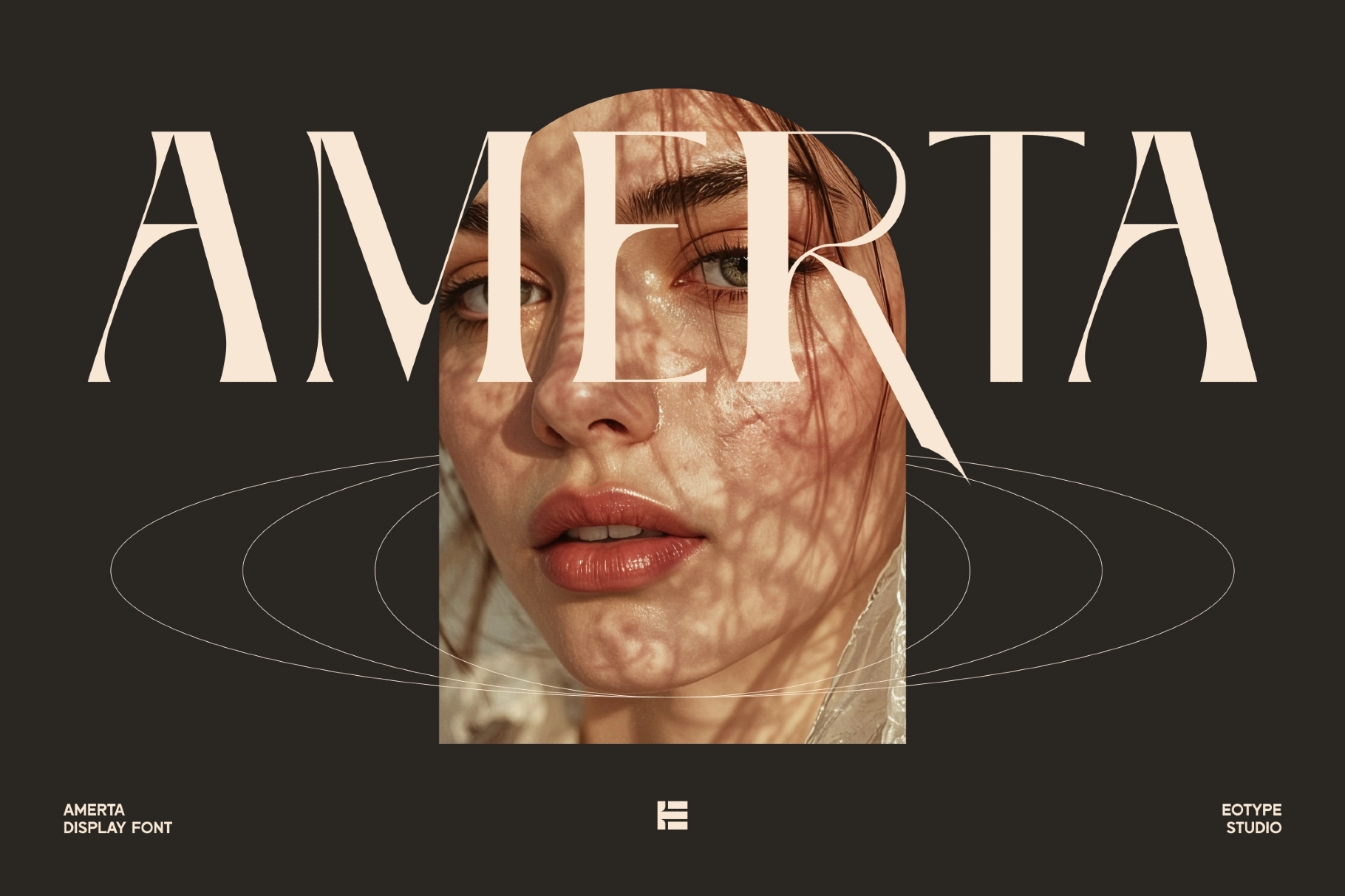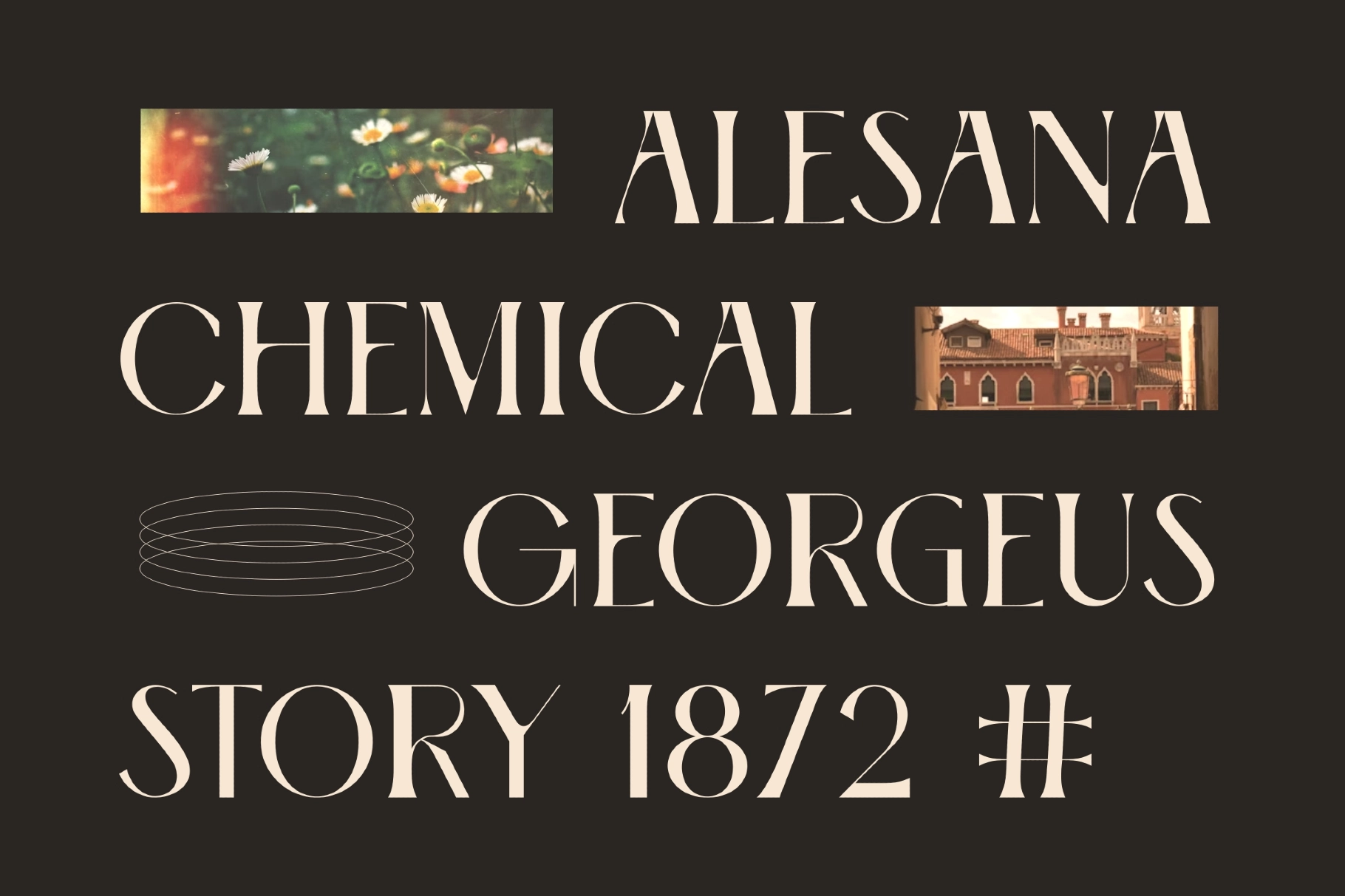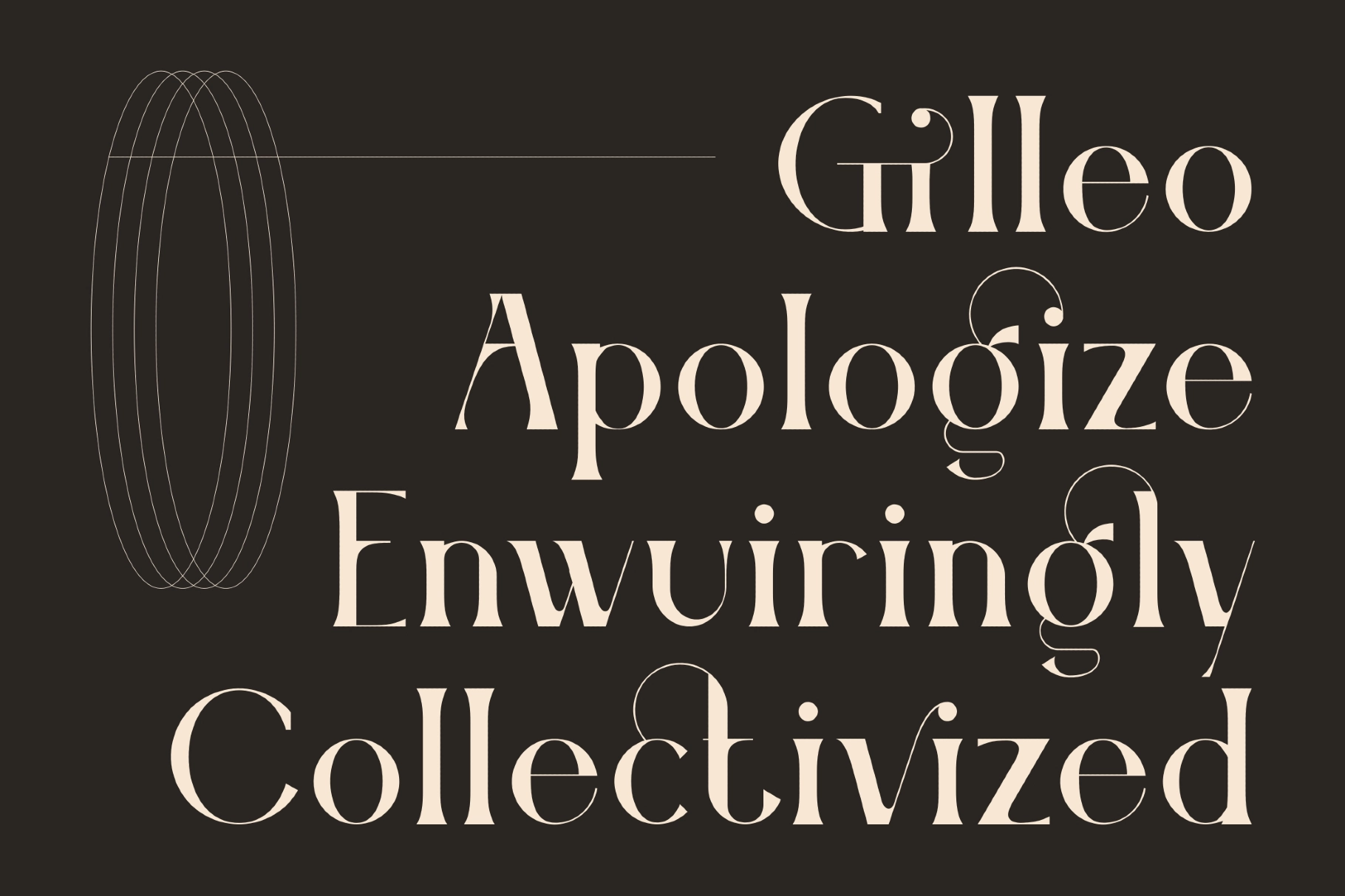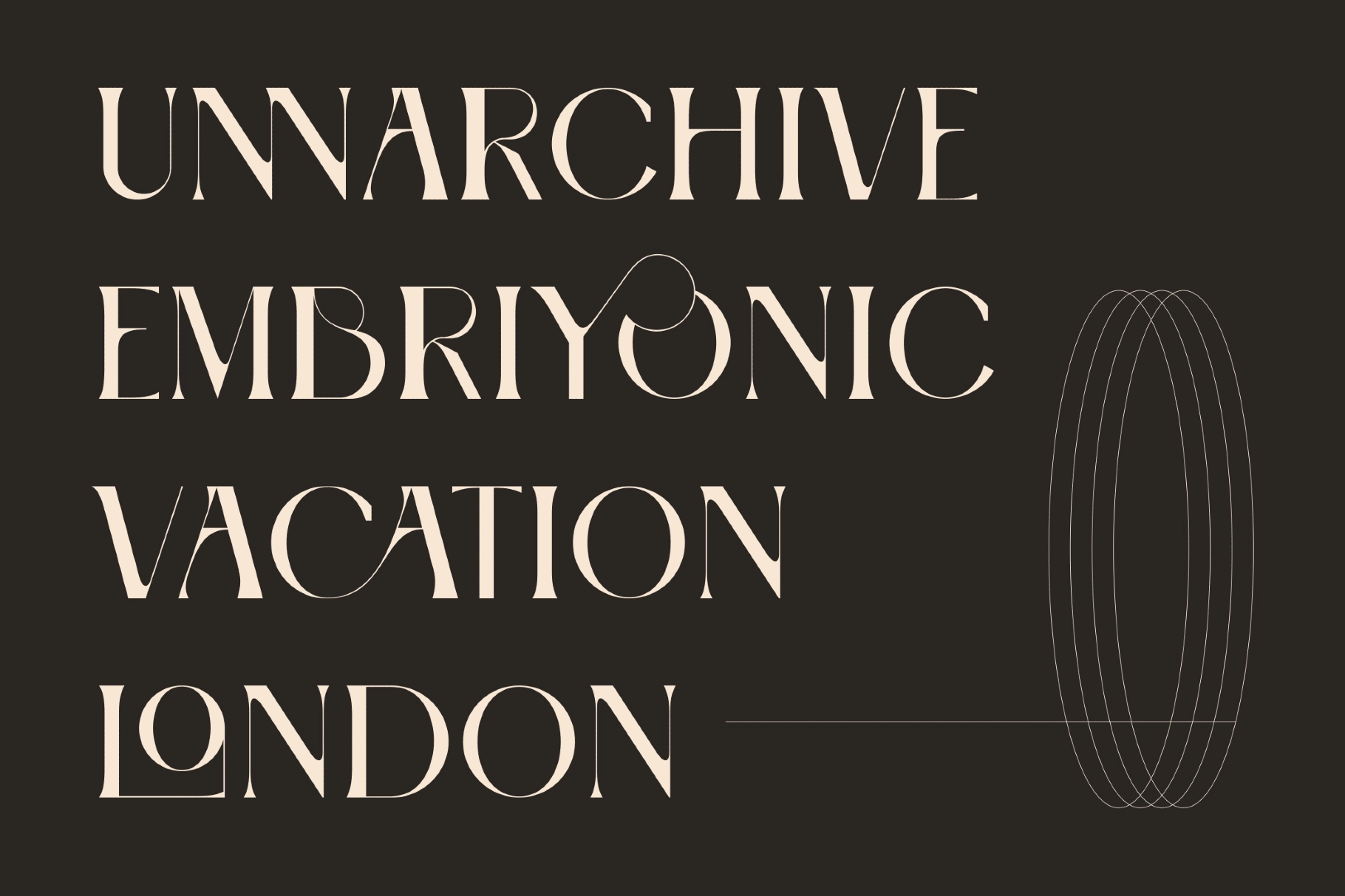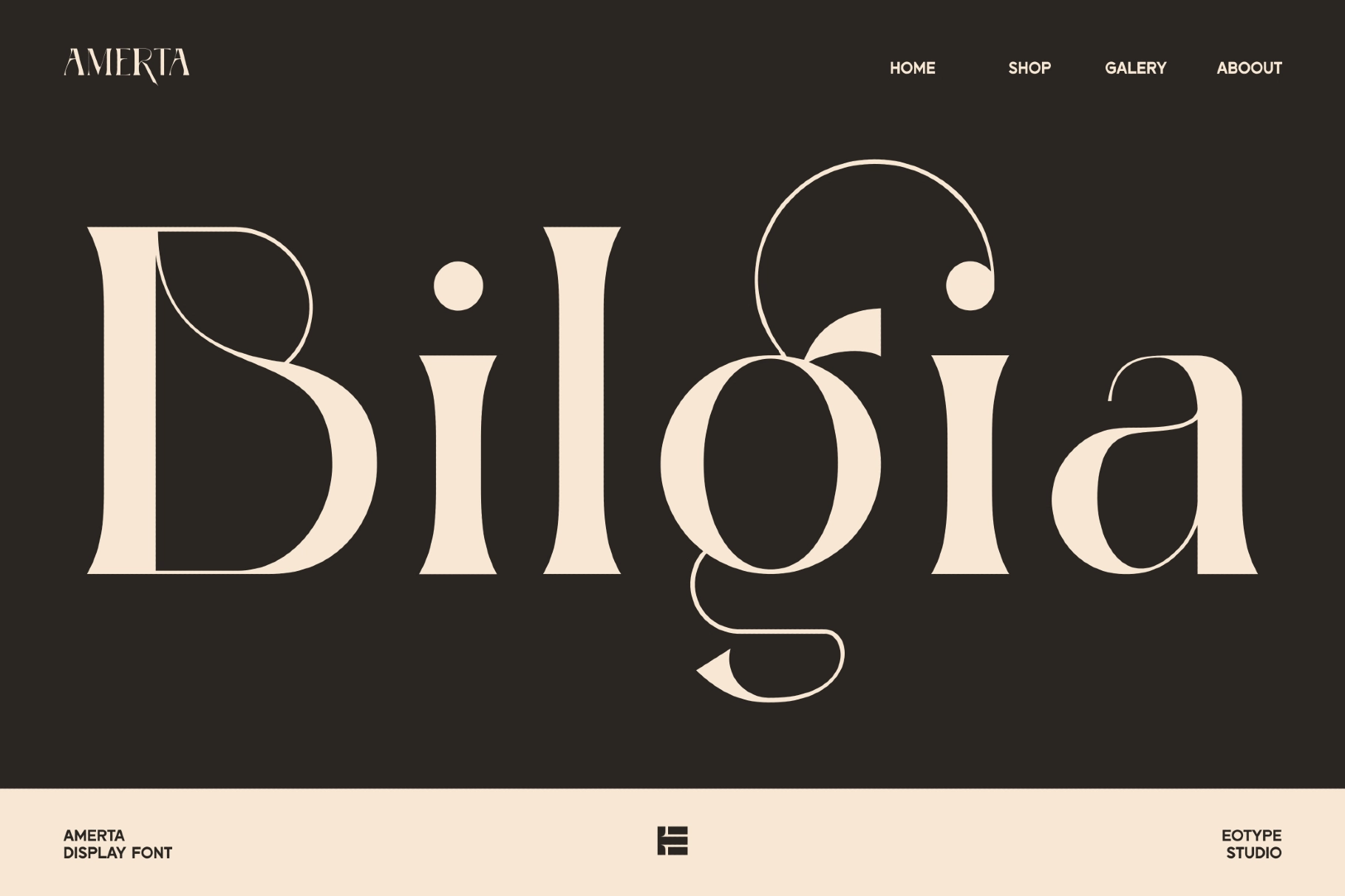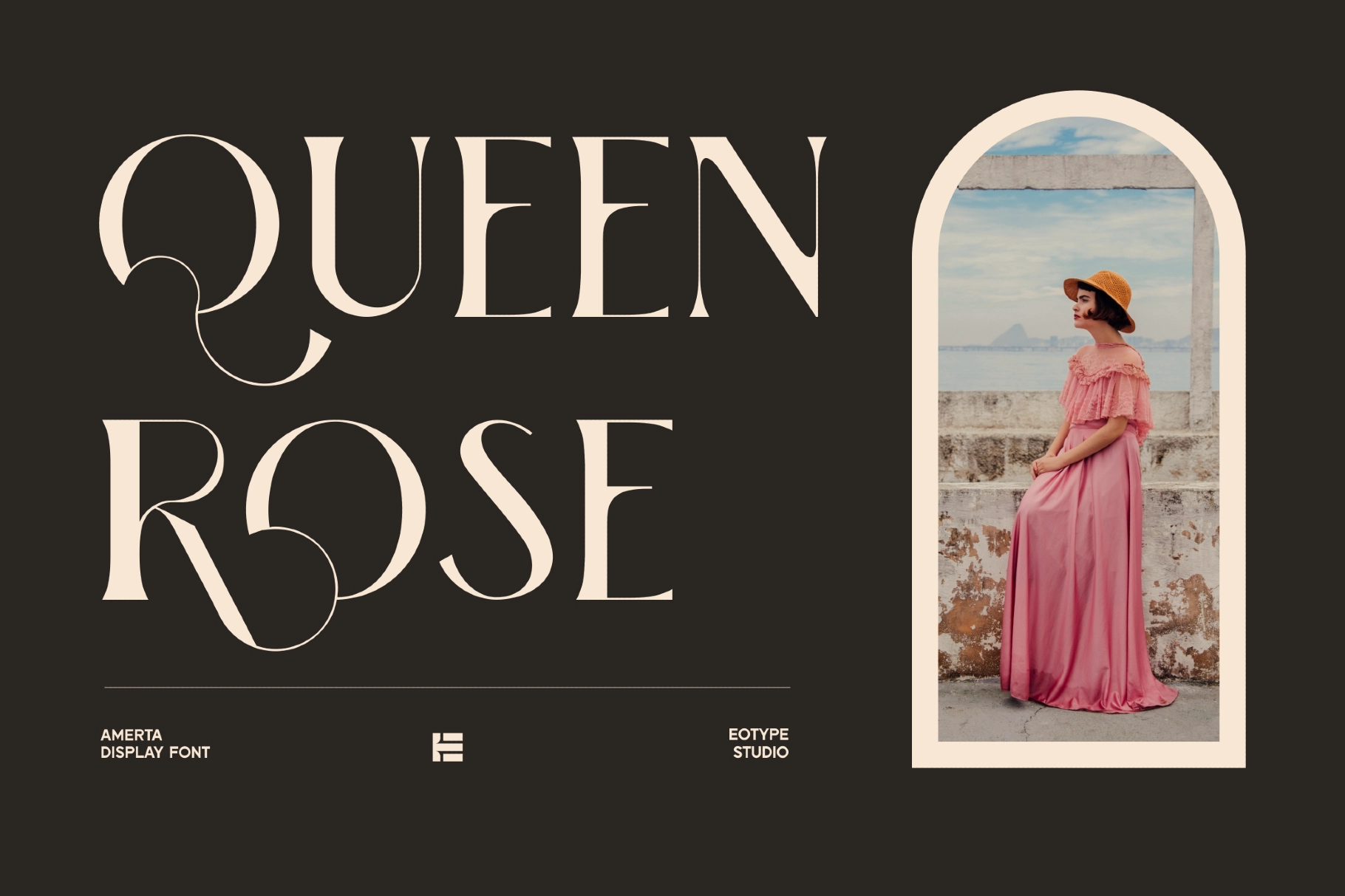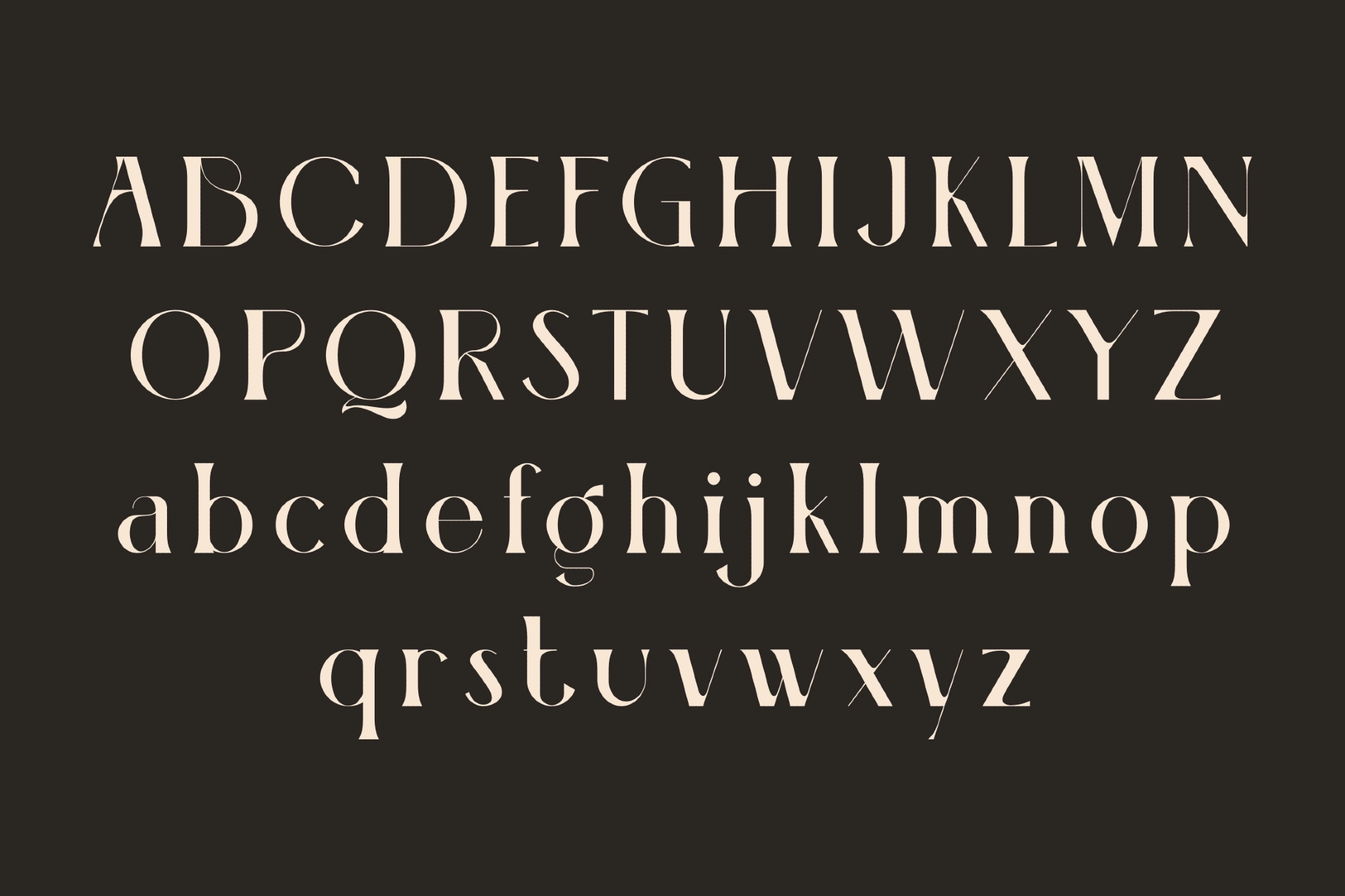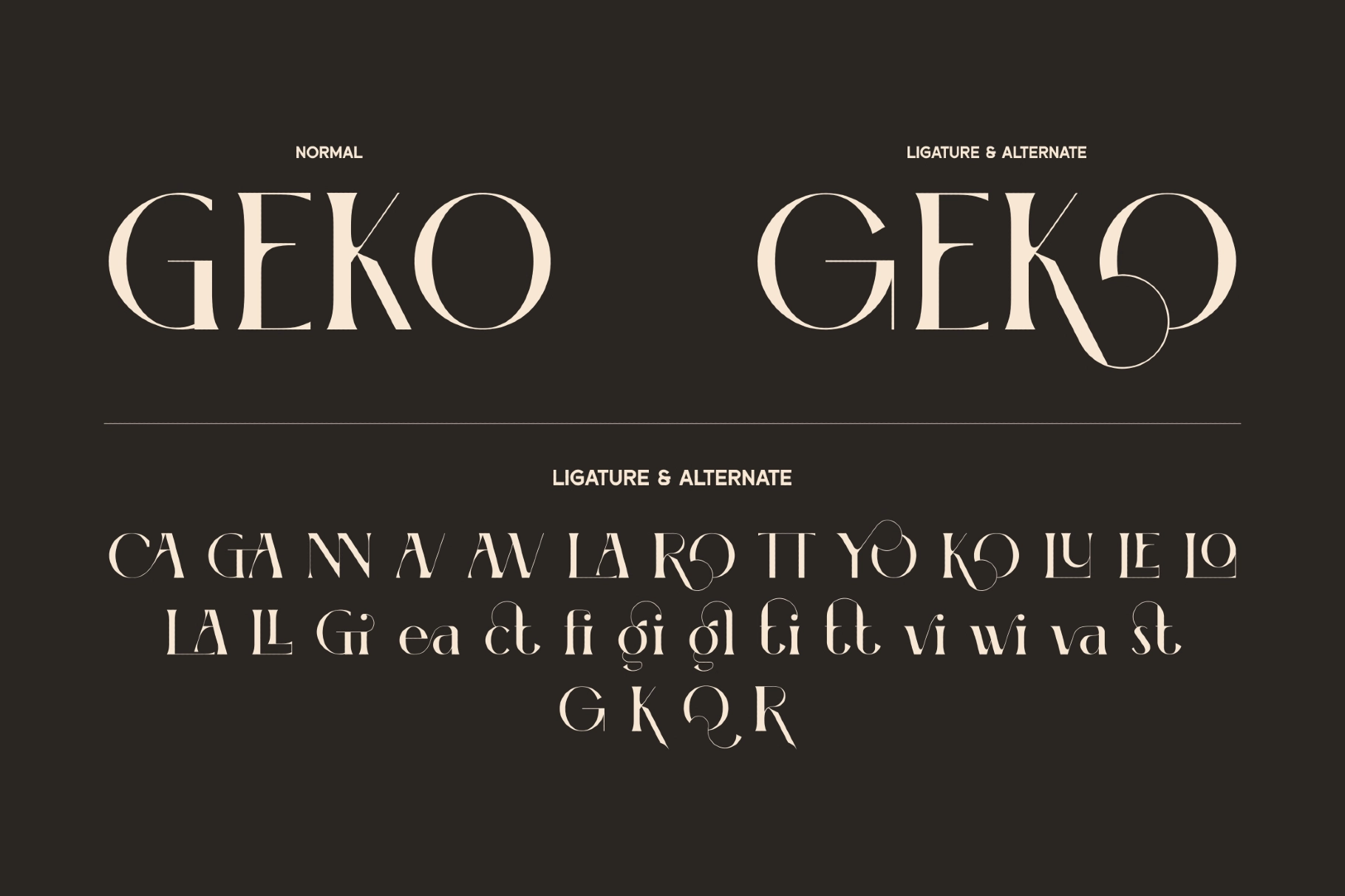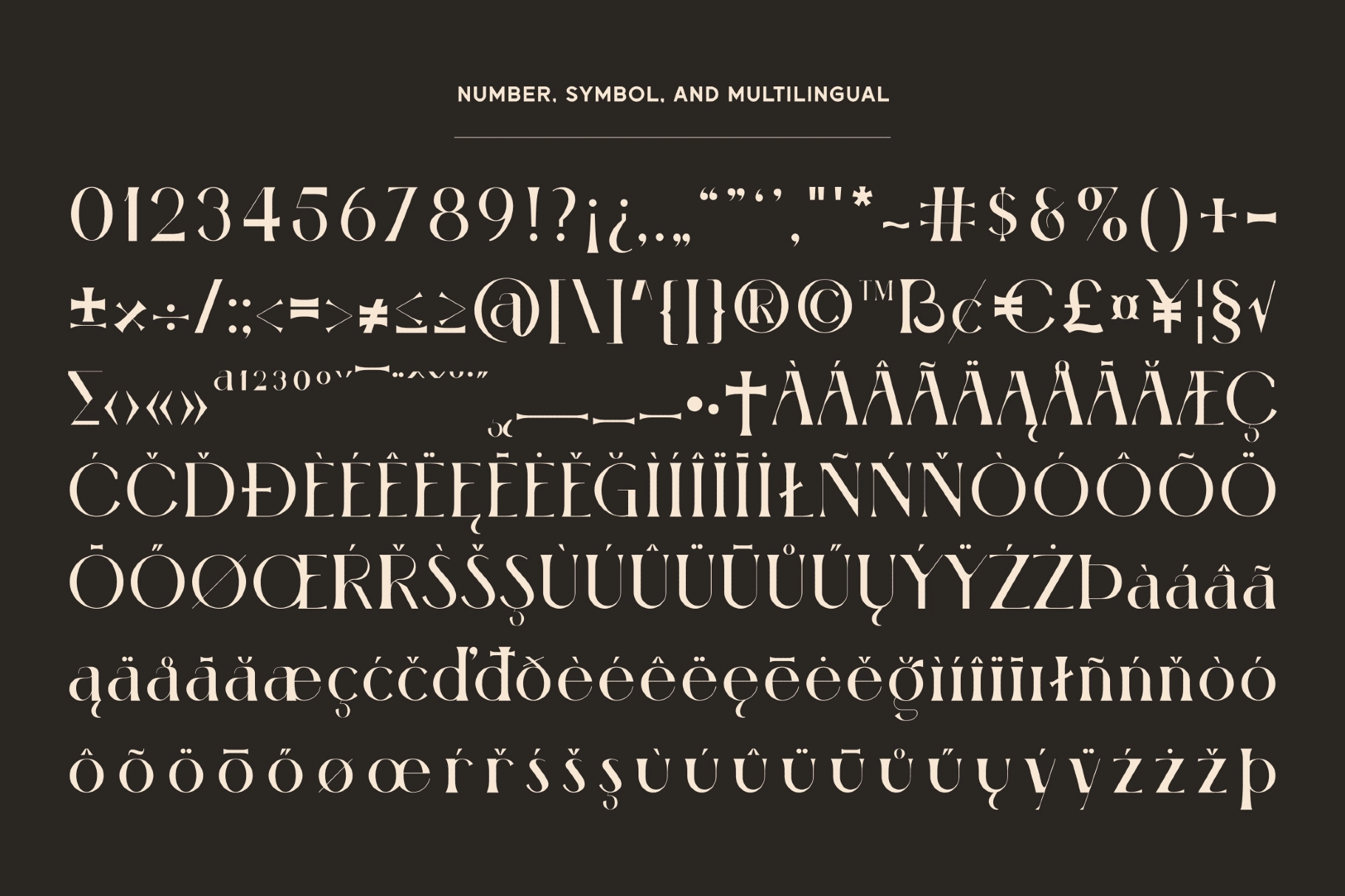
Amerta - High Contrast Serif Font
A high-contrast serif with sharp cuts, slim hairlines, and sculptural alternates, this display typeface is made for fashion identities with a polished editorial tone. Its dramatic ligatures and oversized curves give headlines a refined look without slipping into costume-drama territory.
Use Amerta for luxury logos, boutique branding, magazine mastheads, beauty packaging, perfume labels, campaign headlines, lookbook covers, wedding stationery, social media quotes, editorial spreads, art posters, and more.
• Stylistic alternates & ligatures